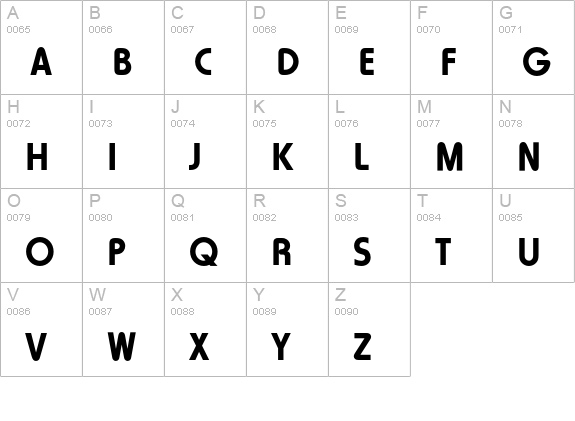
Horatio D Bold is a strong, high-contrast variant in the Horatio typeface family \xE2\x80\x94 well suited to headlines, attention-grabbing titles, and strong calls-to-action.
Horatio D Bold font is a bold and striking typeface that exudes confidence and sophistication. Its strong, clean lines make it perfect for headlines, titles, and other display purposes. The bold weight of the Horatio D font commands attention and adds a touch of modern flair to any design project. What makes Horatio D Bold font even more appealing is that it is available for free download at FontsMarket.com. This means you can easily access this stylish font without any cost, making it a great choice for designers looking to enhance their projects without breaking the bank. Don't miss out on the opportunity to add Horatio D Bold font to your font collection today!